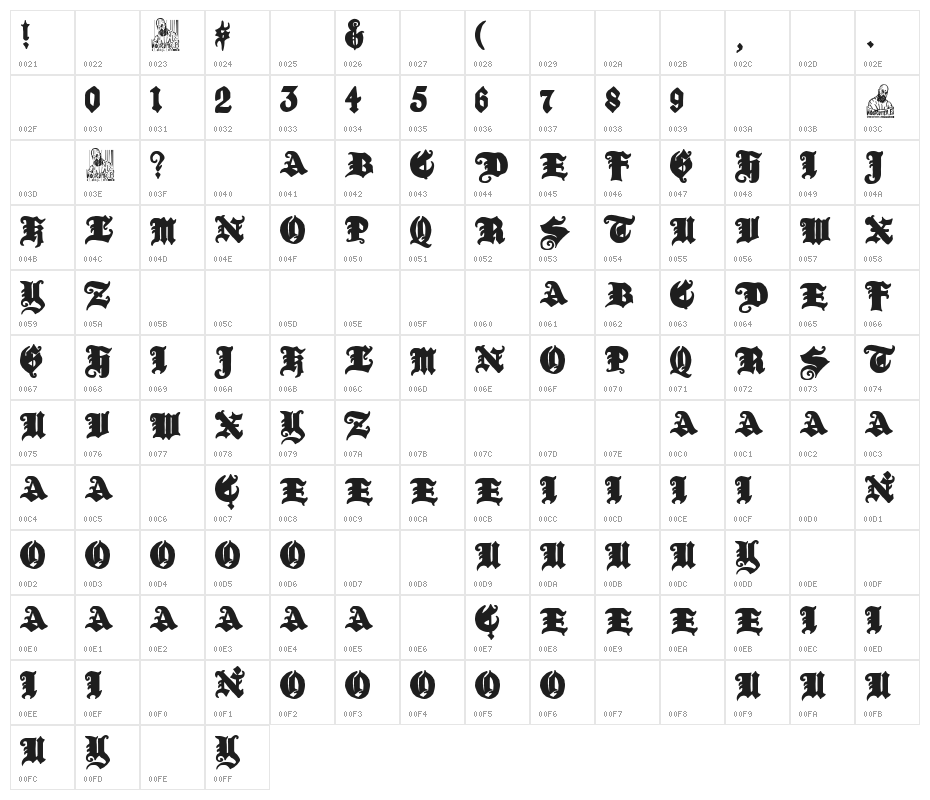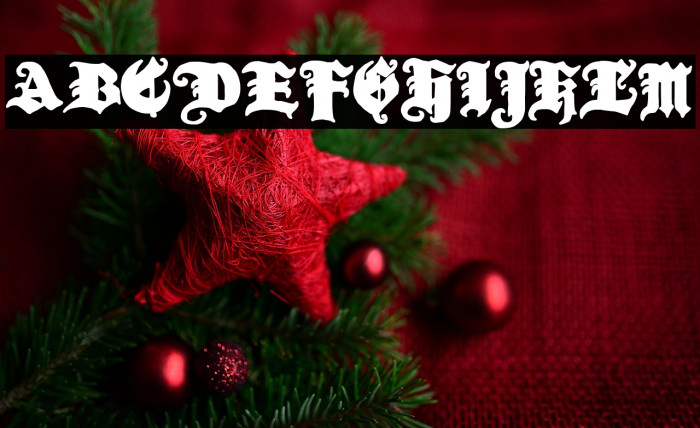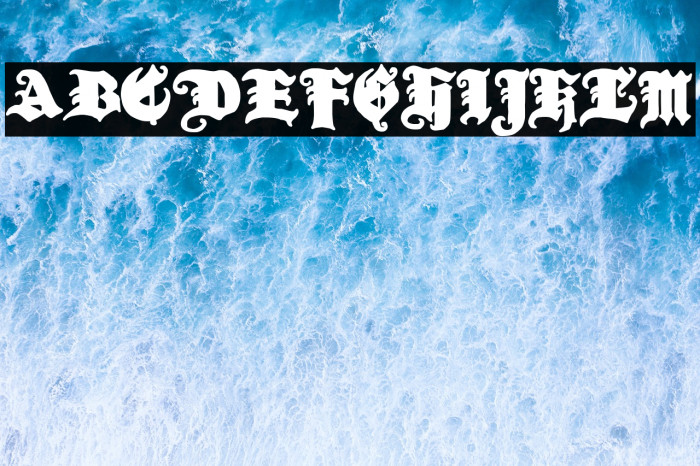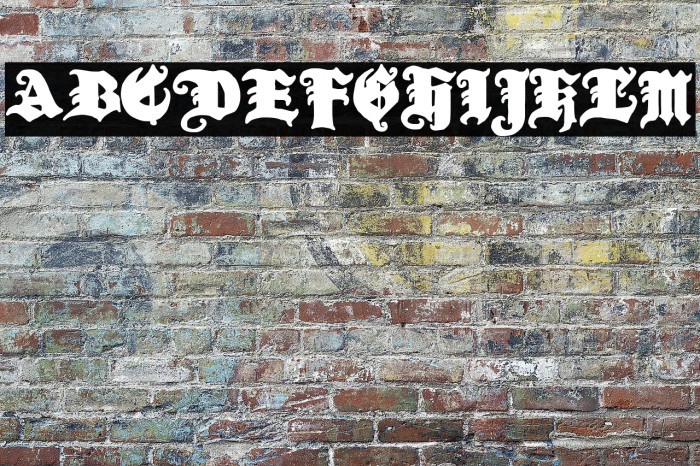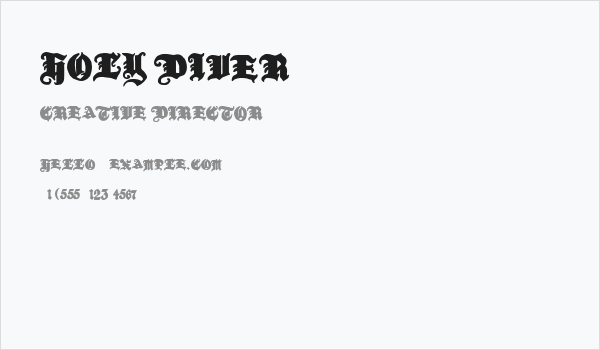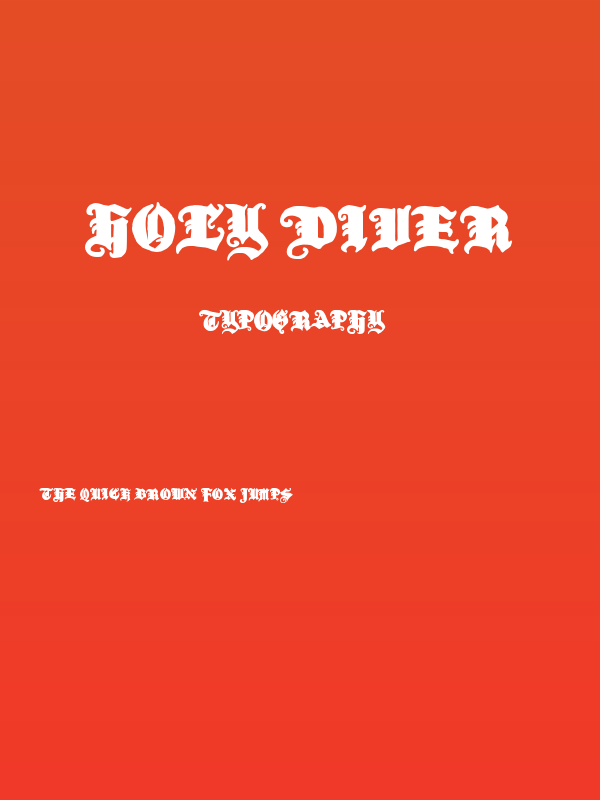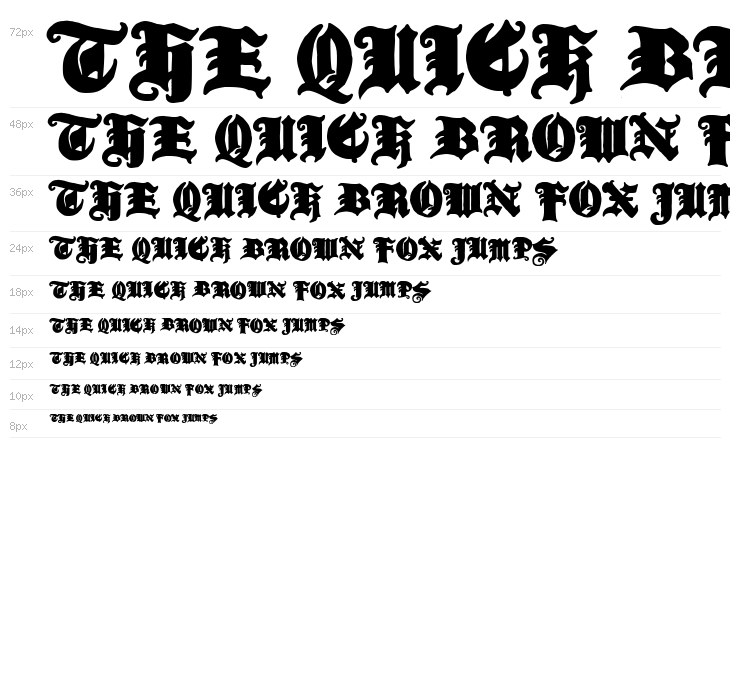
Holy Diver Font
Holy Diver Description
This font features a bold and dramatic blackletter style, reminiscent of traditional Gothic script. The characters are ornate, with intricate details and flourishes that give it a historical and medieval feel. The uppercase letters are particularly elaborate, with sharp angles and decorative elements that enhance their visual impact. The numerals and special characters maintain the same level of detail, ensuring consistency across the font. This style is often associated with old manuscripts and heraldic designs, making it suitable for projects that require a touch of antiquity and elegance.
| Proposed Projects | Ideal for historical or medieval-themed designs, book covers, posters, and branding that requires a classic and dramatic touch. |